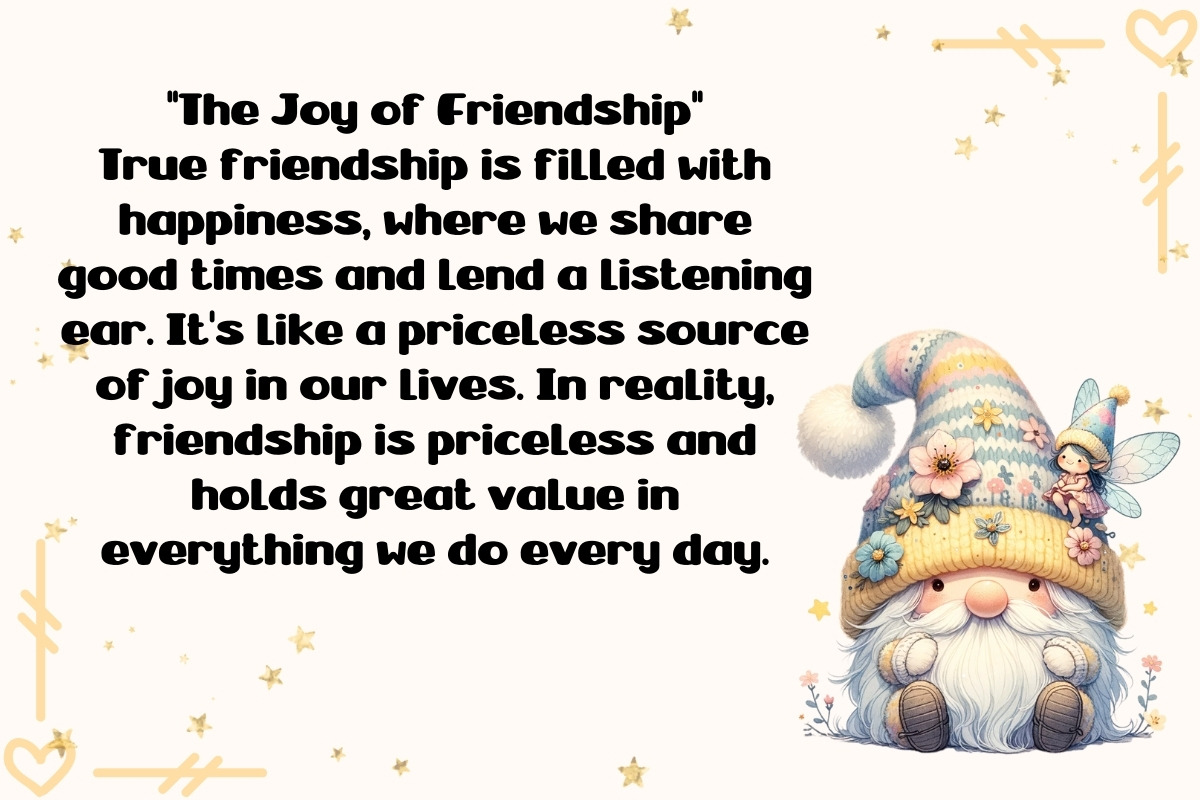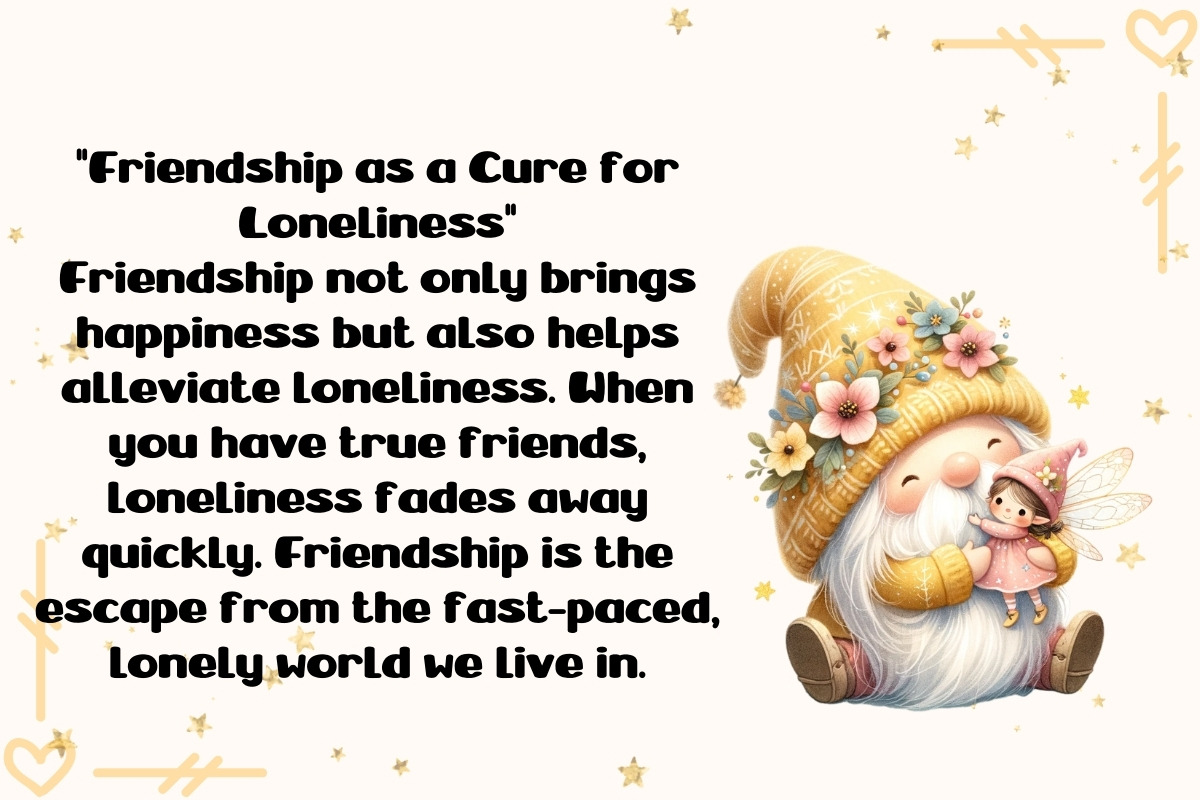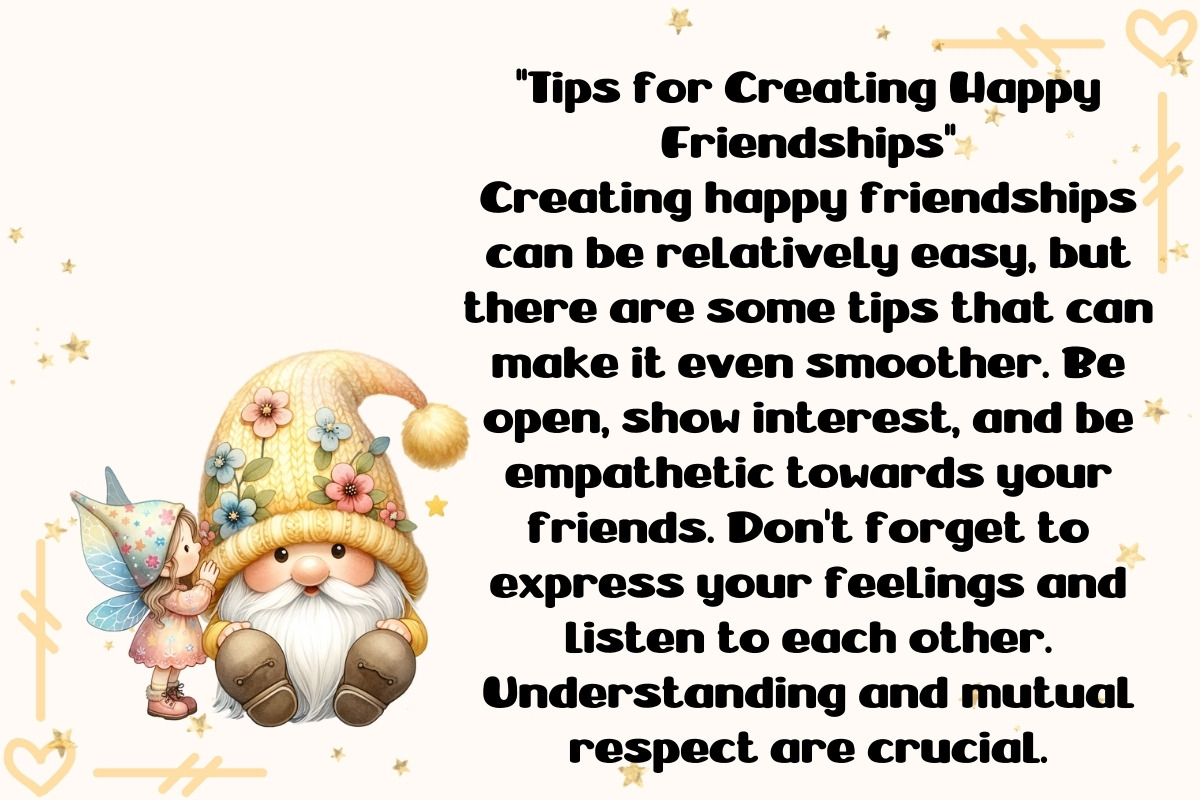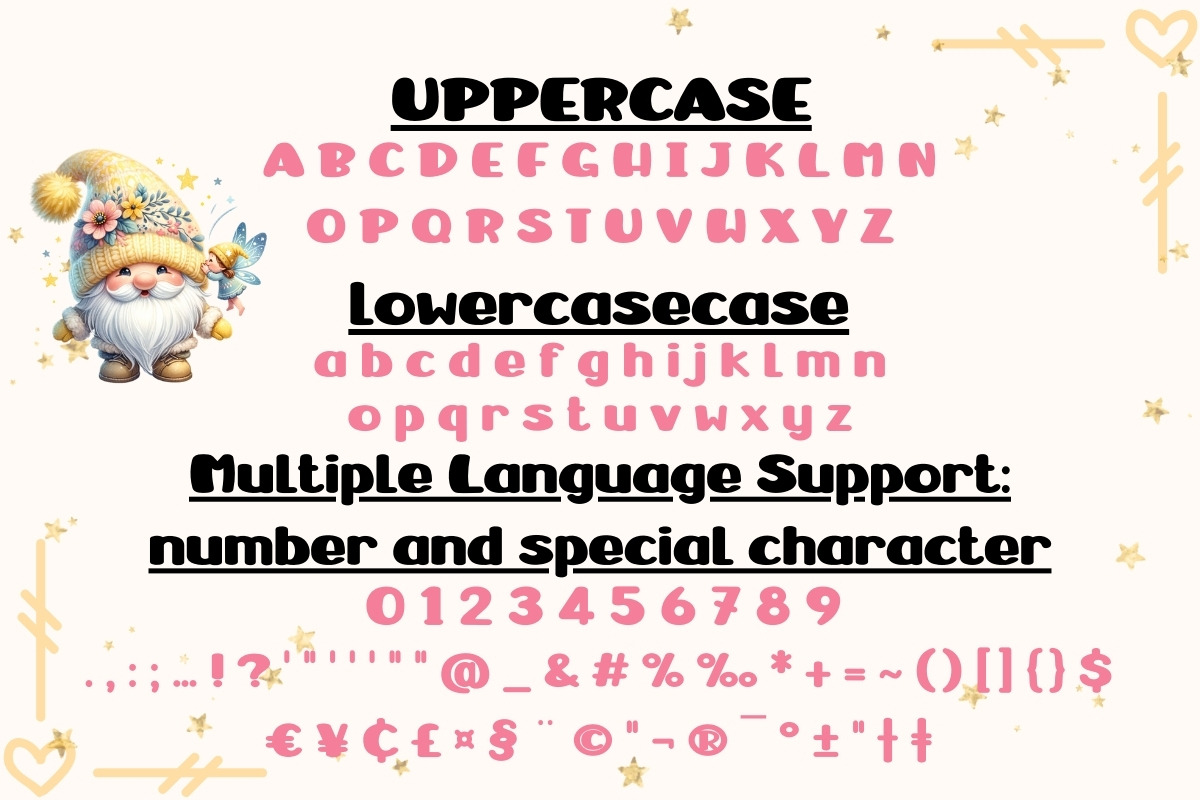
Happy Friendship - Handwritten
Introducing "Happy Friendship" Font Collection!
Ink-Stained Hugs: Dive into the world of "Happy Friendship," where every letter feels like an ink-stained hug. This font collection captures the essence of handwritten notes shared between friends, infusing your creations with warmth and sincerity.
Playful Elegance: "Happy Friendship" brings an air of playful elegance to your design projects. Its flowing, handwritten strokes create a sense of spontaneity and friendliness, making it ideal for invitations, greeting cards, and more.